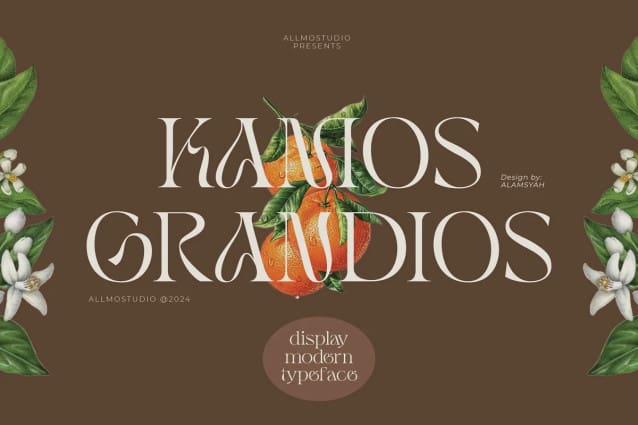
Kamos Grandios Font
Kamos Grandios Font is a symphony of graceful curves and well-defined serifs, creating a harmonious balance that exudes artistic sophistication. Each character is meticulously crafted to convey a sense of refinement and creativity.
Kamos Grandios adapts effortlessly to various design contexts. Its versatility makes it a go-to choice for projects that demand both professionalism and artistic expression.
The font’s contemporary twist lies in its unique details, Kamosgrandios is not just a font; it’s a visual statement that leaves a lasting impression.
Kamos Grandios font perfect for editorial design, lends a sleek and contemporary edge to magazine layouts, book covers, and editorial spreads. Its refined appearance elevates the overall aesthetic, making your content visually engaging.
Kamos Grandios Serif is more than a typeface; it’s a bridge between tradition and modernity, a canvas for your creative endeavors. Elevate your design projects with Lumina Serif and let its modern, memorable, and artistic style captivate your audience.